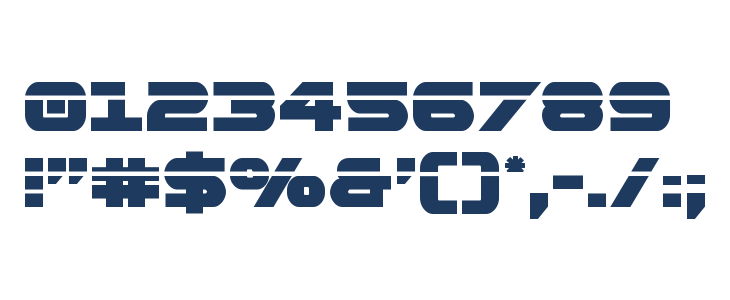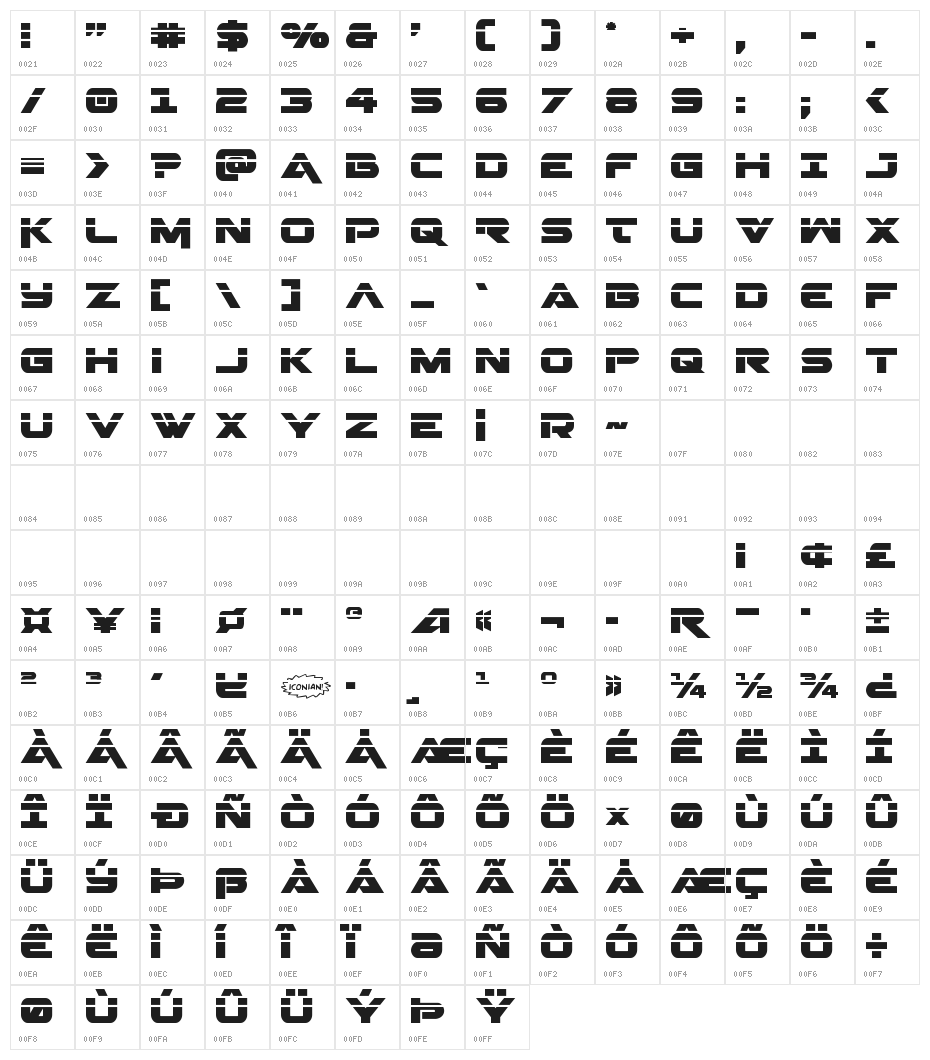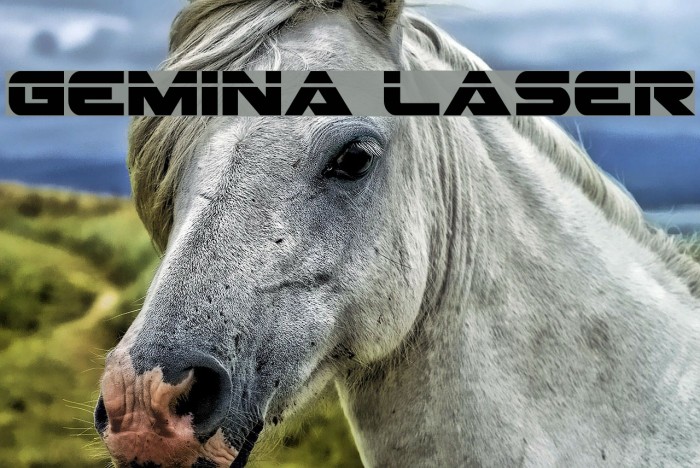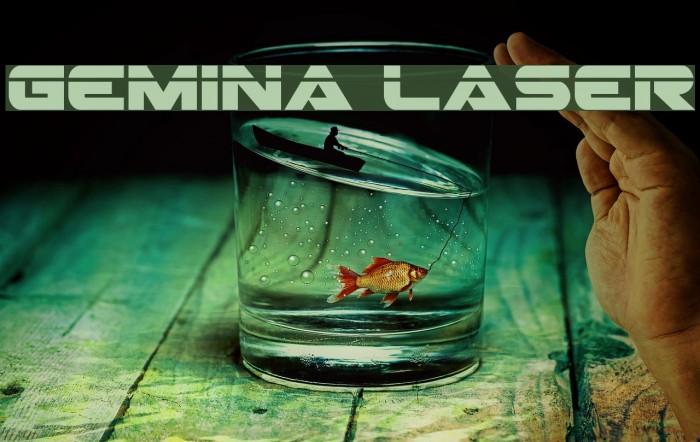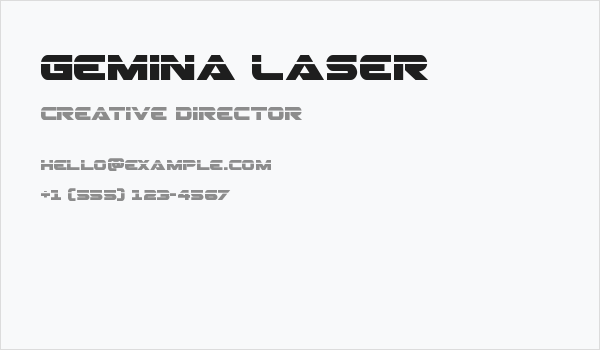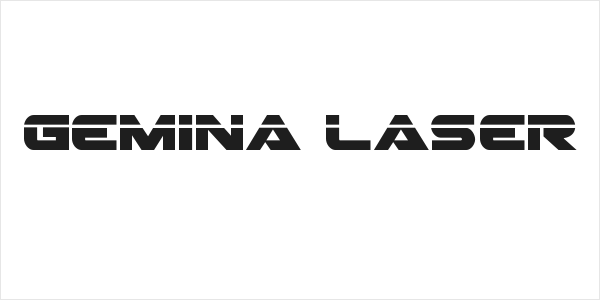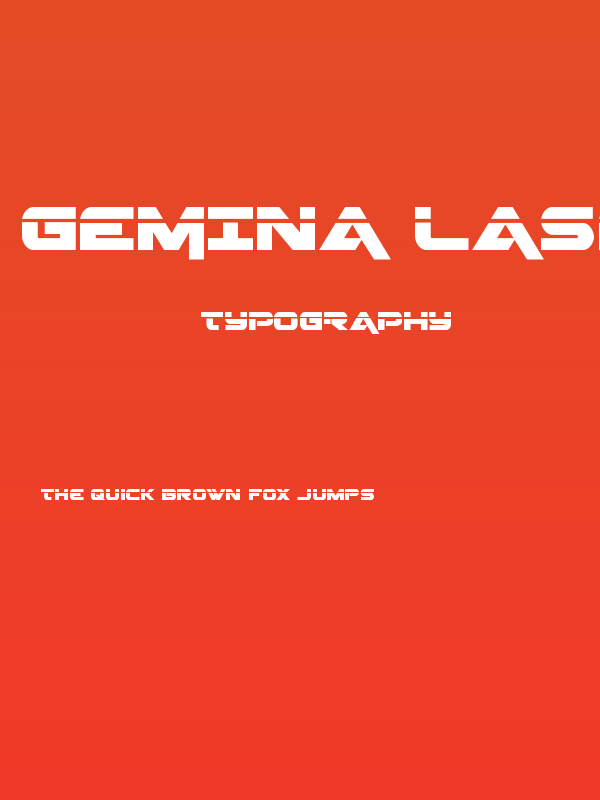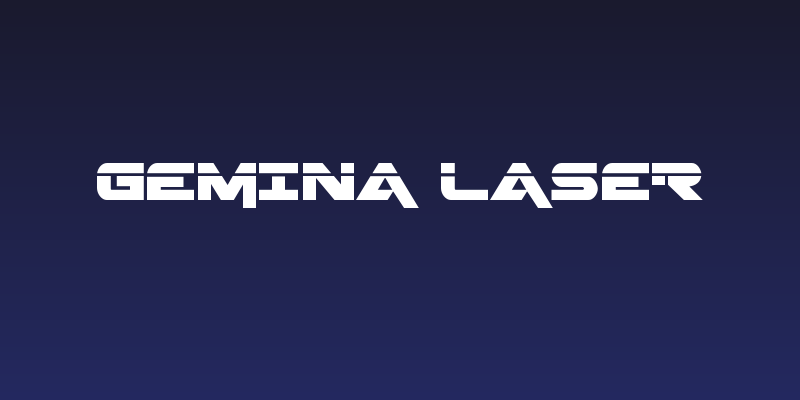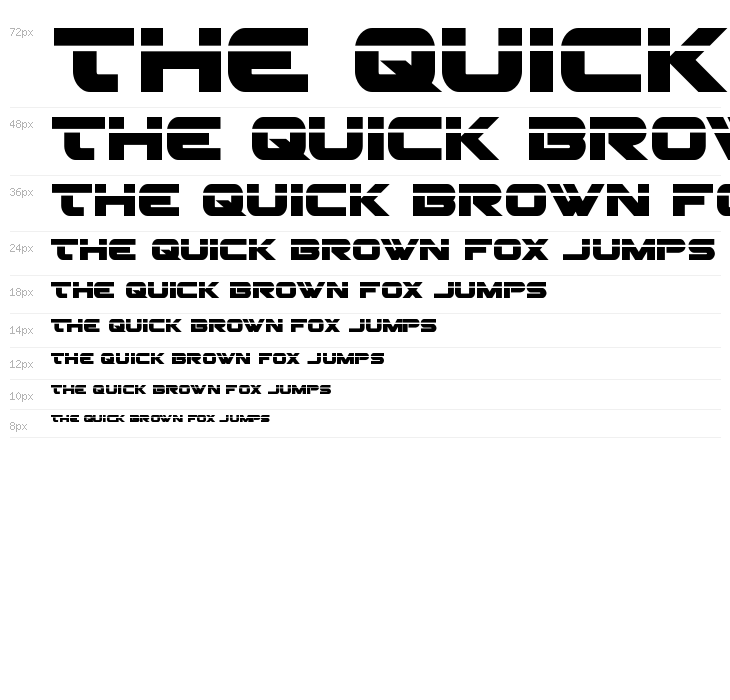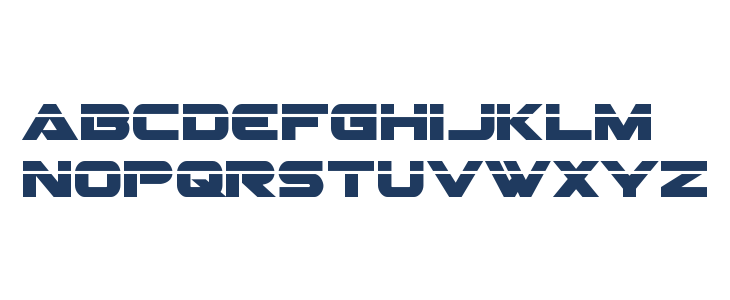
Gemina Laser Font
Gemina Laser Description
This font features a futuristic and geometric design, characterized by sharp angles and bold lines. The uppercase letters are distinct with their angular cuts and solid structure, giving a sense of modernity and technological advancement. The lowercase letters maintain a consistent style, complementing the uppercase with similar angular features. The numerals are bold and easily readable, following the same geometric theme. Special characters are uniquely styled, adding to the font's overall futuristic appeal. This font is ideal for projects that require a modern and cutting-edge look.